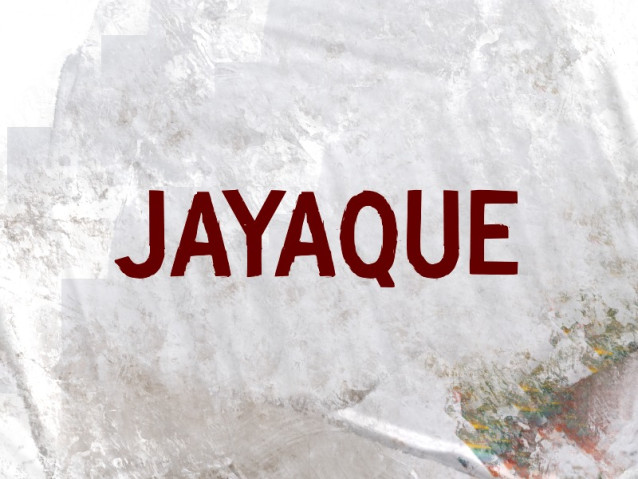
Jayaque Font
Jayaque Font is a simple and modern display font suitable for quotes, logos, headings, titles, and many more. Use it on any of your creative projects, and your designs will become outstanding!